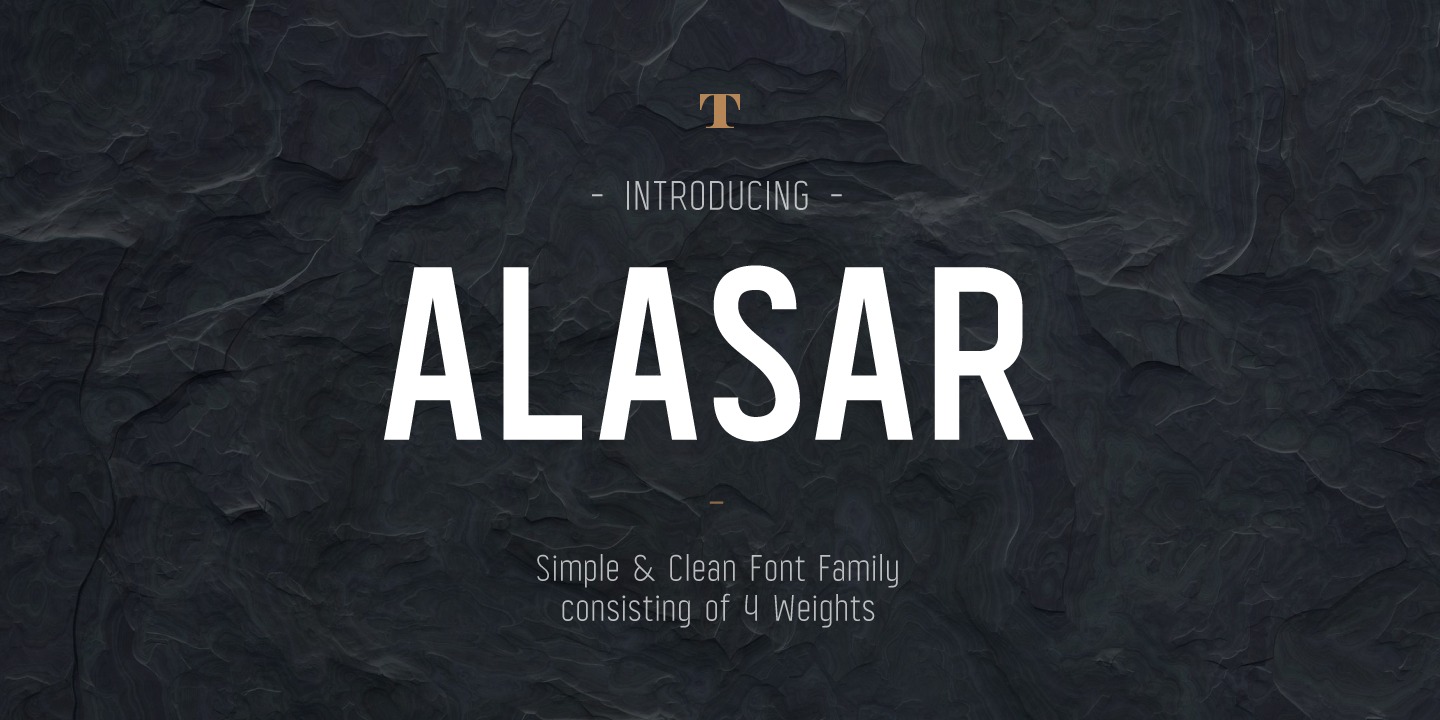
Alasar Font Family
Alasar is a headline font family designed for magazines, newspapers, etc. It could easily work for signage, corporate as well as for editorial design.